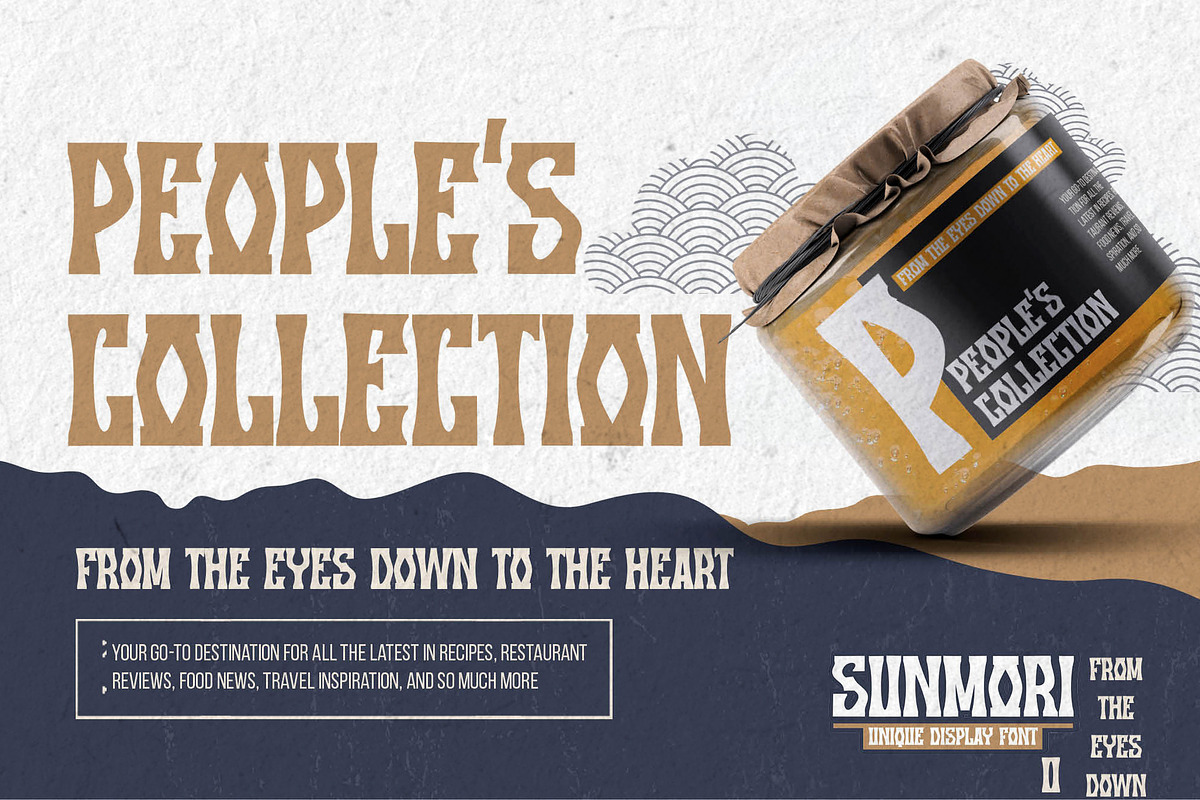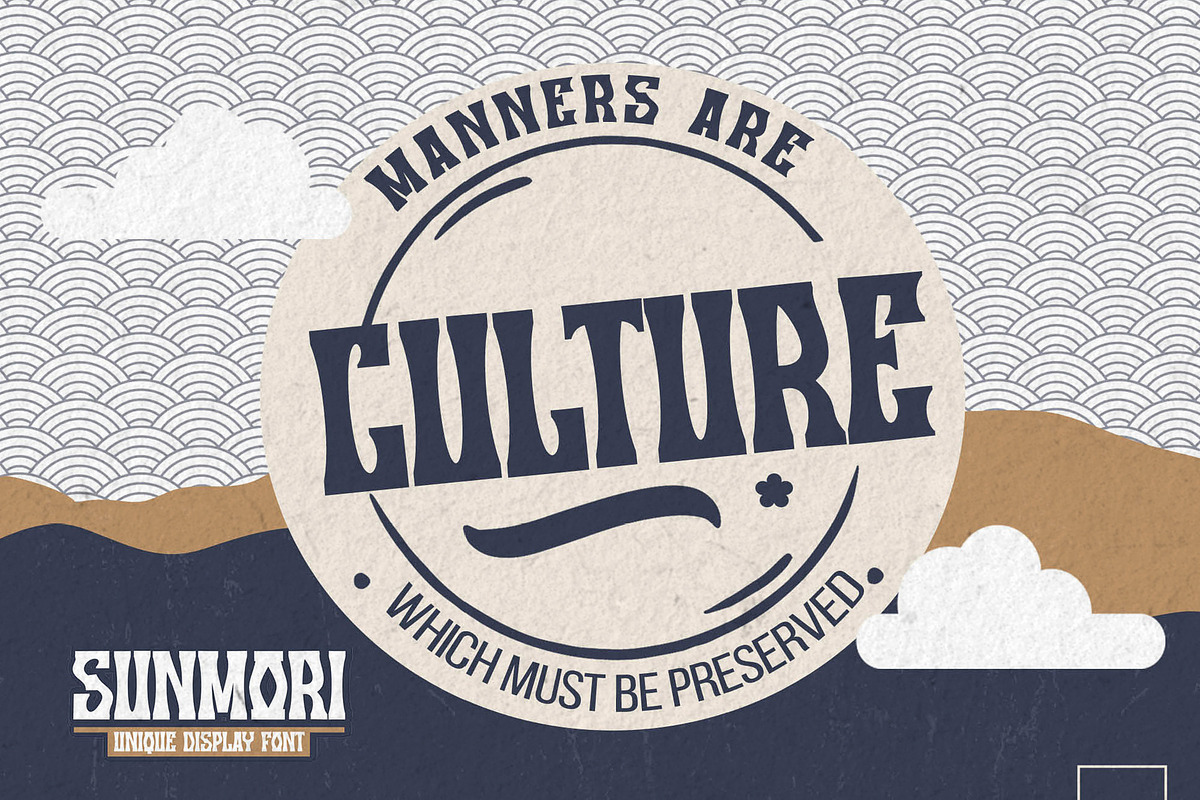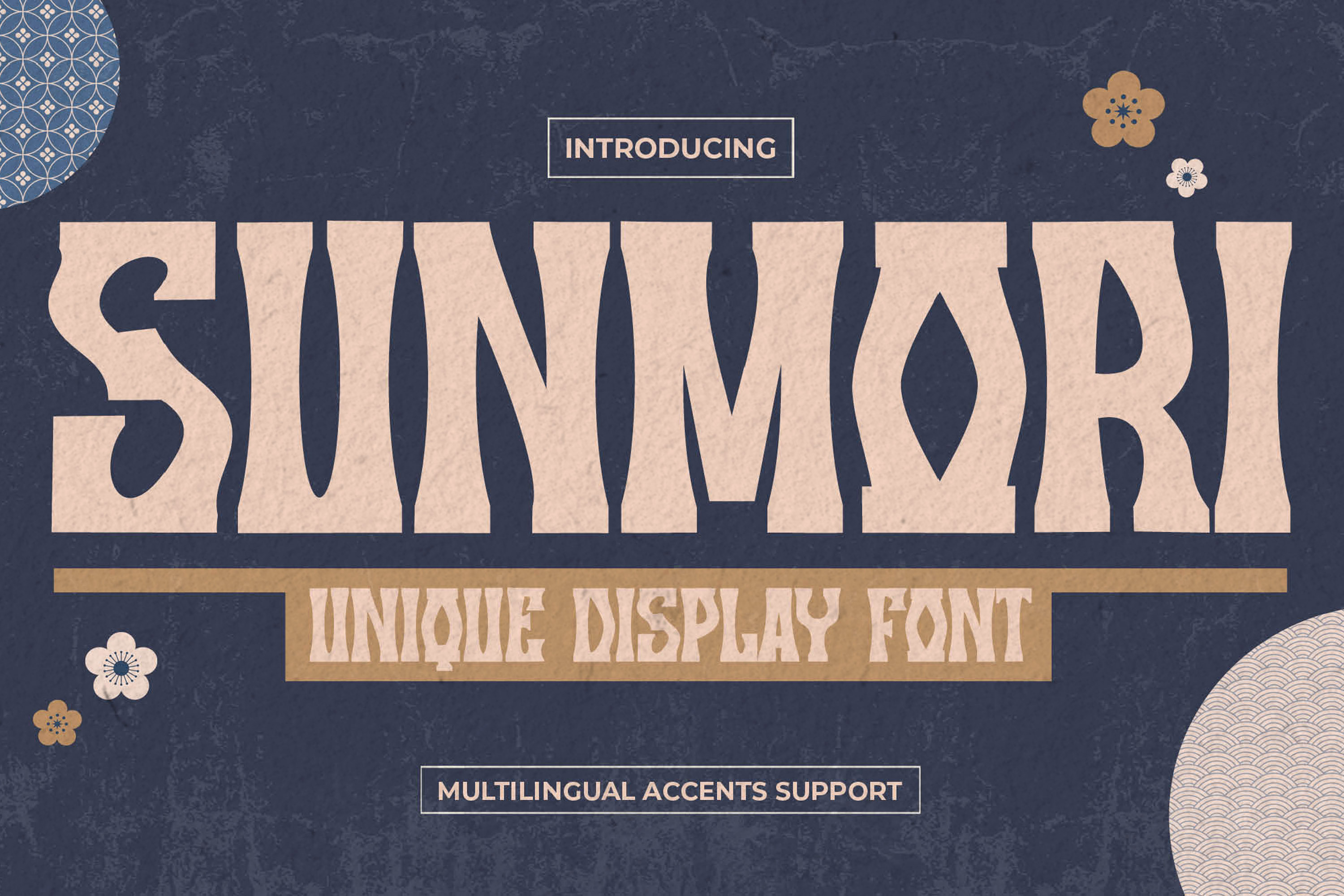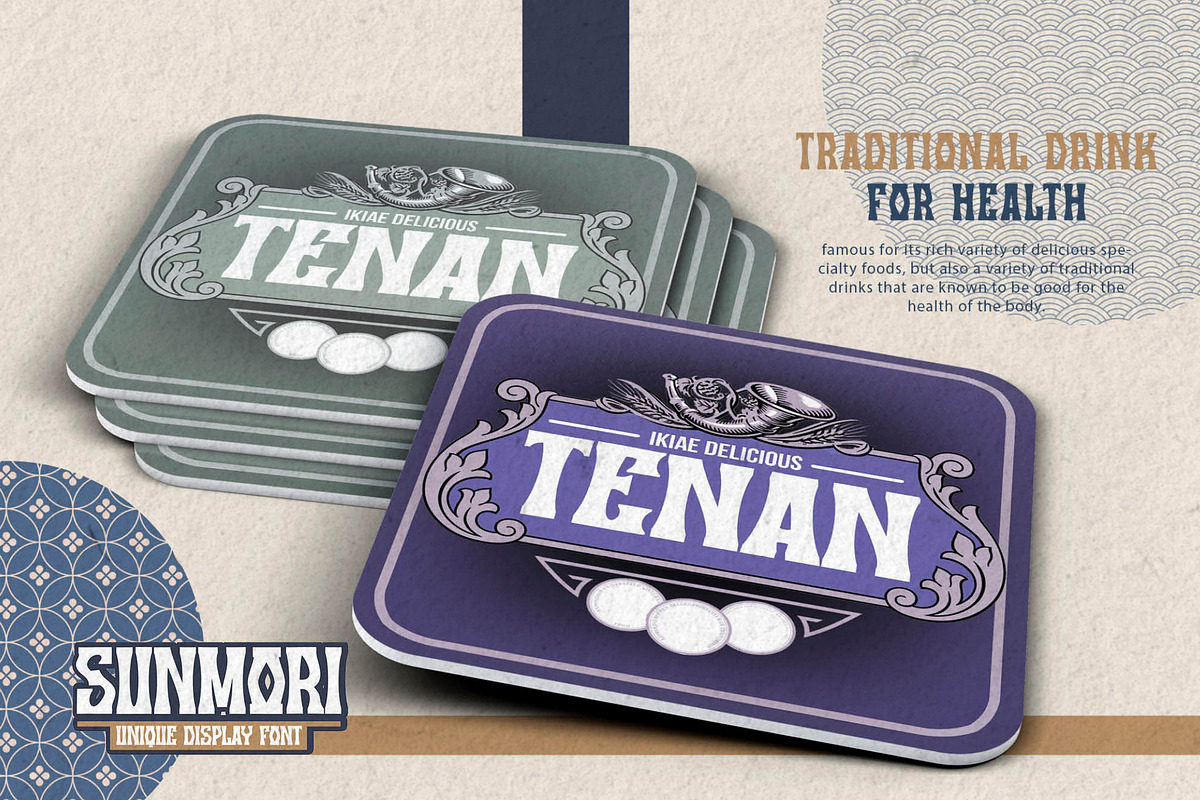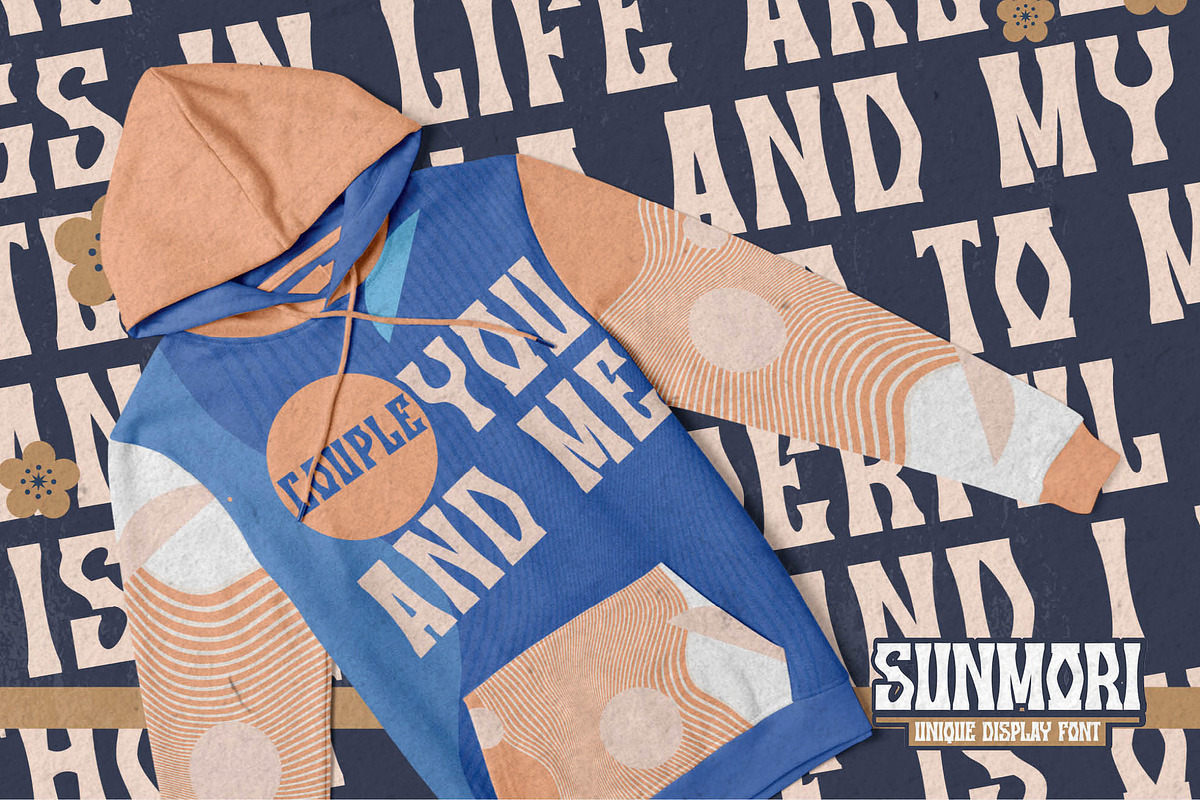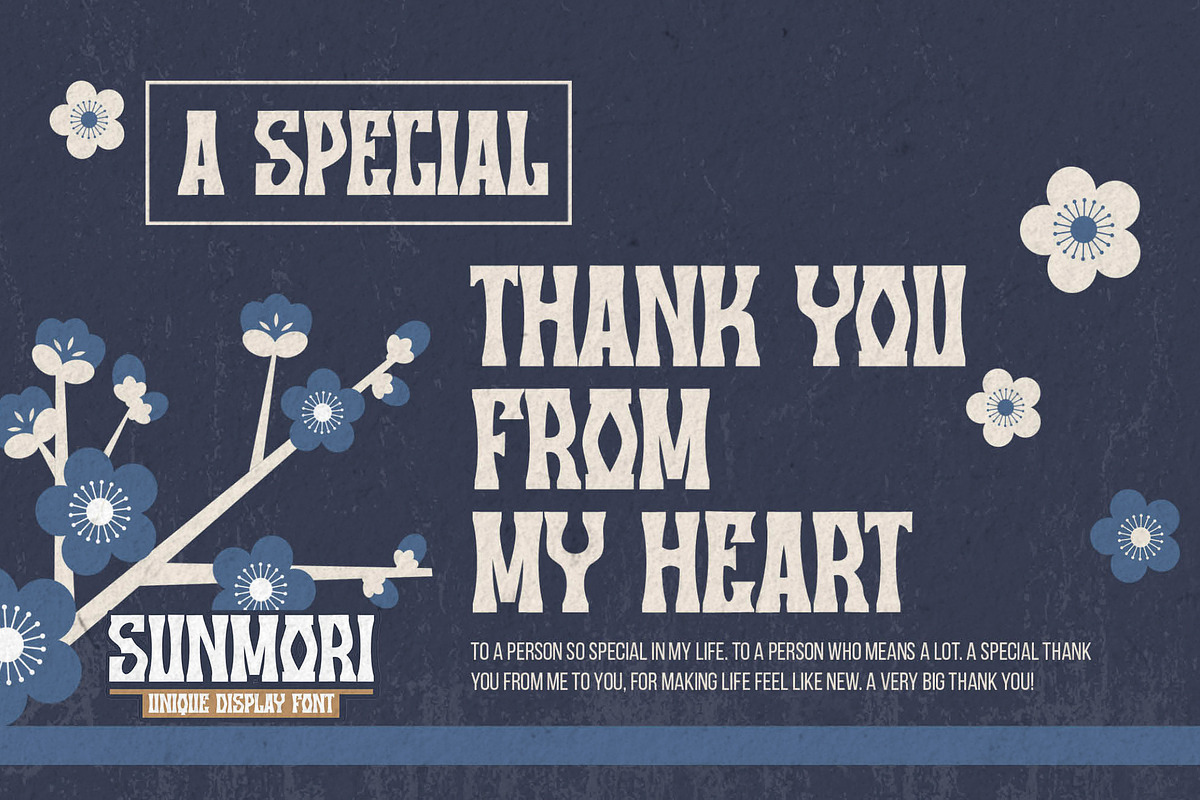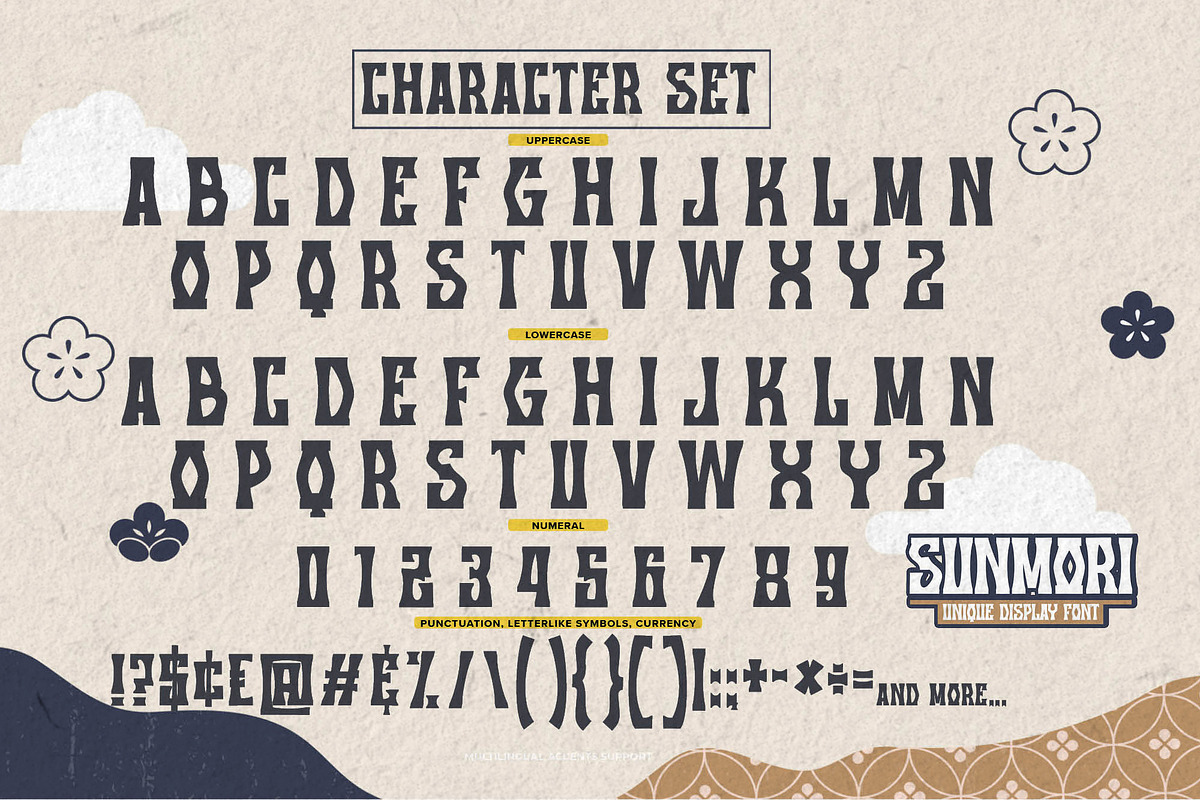
SUNMORI - Unique Display Font
Here comes a New font,Introducing SUNMORI It's Unique Display Font is a Textured Natural Style and classy style, this font is great for your creative projects such as watermark on photography, and perfect for logos & branding, invitation,advertisements,product designs, stationery, wedding designs,label ,product packaging, special events or anything that need handwritting taste.
SUNMORI a natural Hand Drawn feel. This handmade font will make your design has a beautiful natural touch for each details. It is perfect for any design project as Invitation,logo, book cover, craft or any design purposes,photos, photography overlays, signs, window art, scrapbooking, tags and so much more! That is has charming, authentic and relaxed characteristic more natural look to your text.